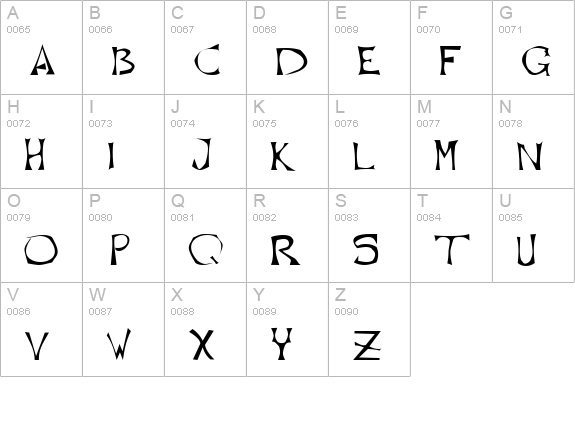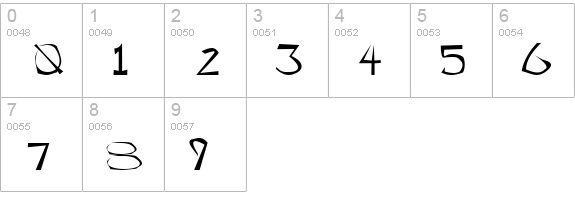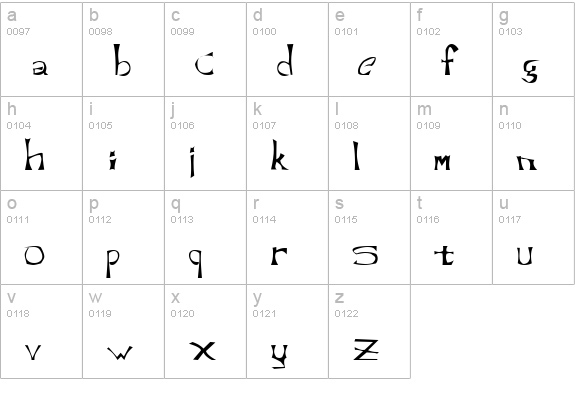
Untitled Font Details
Untitled font is a stunning typeface that effortlessly combines elegance with a touch of modernity. With its clean lines and sleek curves, this font is perfect for a wide range of design projects, from branding and logo design to editorial layouts and website headers. This font is not only visually captivating, but it also offers excellent legibility, making it a versatile choice for both print and digital media. Its carefully crafted letterforms ensure that each character is distinct and easily recognizable, providing a seamless reading experience for your audience. One of the best things about Untitled font is that it is completely free. Yes, you read that right! This amazing font is freely available to download at FontsMarket.com. Whether you are a professional designer or a hobbyist, you can now access this incredible font without any cost. Downloading Untitled font from FontsMarket.com is incredibly easy. Simply visit the website, find the font in the extensive collection, and click the download button. In just a few seconds, you will have this remarkable font ready to use in your design projects. So why wait? Take advantage of this wonderful opportunity to enhance your designs with the timeless beauty of Untitled font. Download it for free at FontsMarket.com and let your creativity soar to new heights.